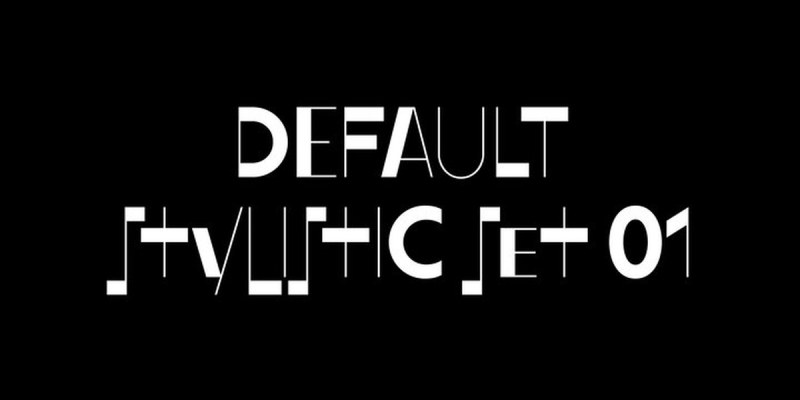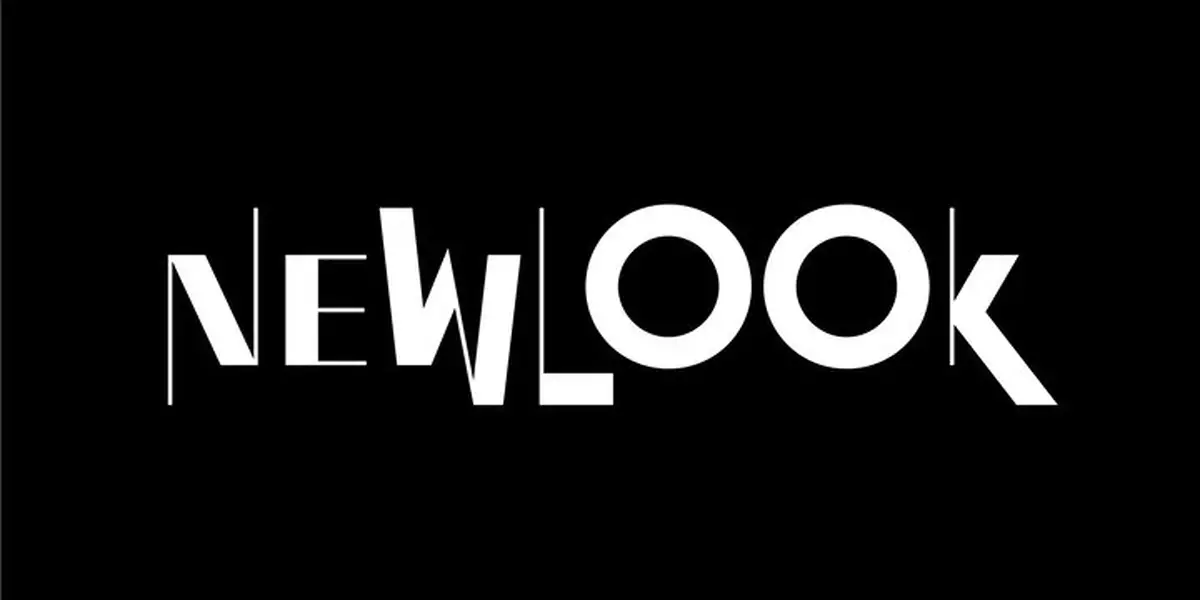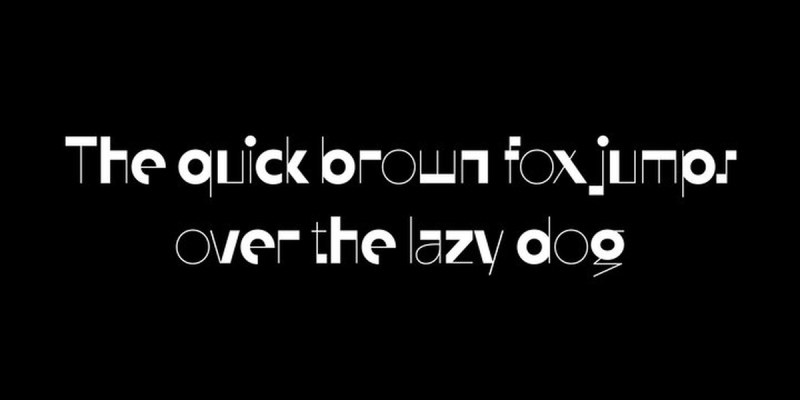
Newlook Font
Newlook is a display font drawn with geometric shapes and high contrast. The stylistic set 01 shows capital letters using heights from descenders to ascenders and x height which gives a crazy dancing look. Perfect for display, poster, magazine etc…
Where Newlook Font works best
Newlook Font is built for size: event posters, hero headlines and billboard-style layouts.
High contrast display type like Newlook Font reads instantly in thumbnails and motion graphics.